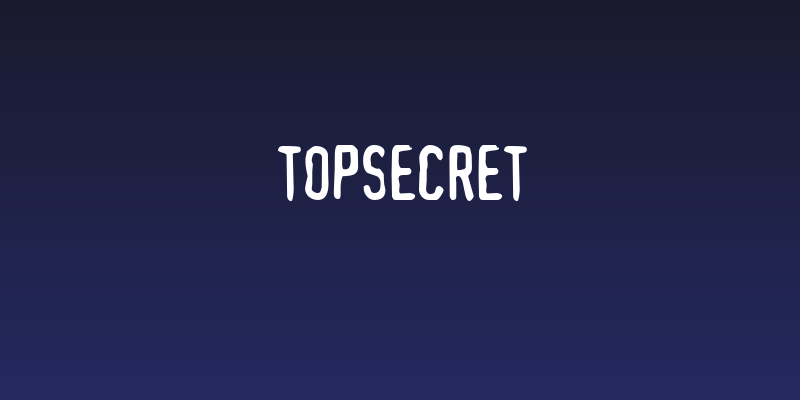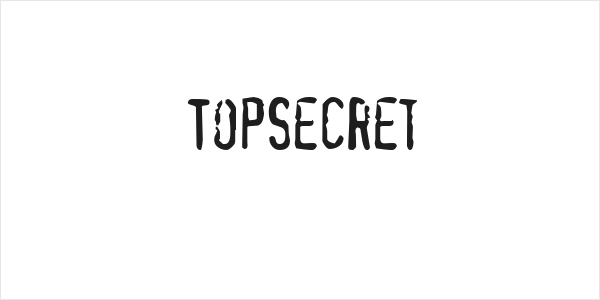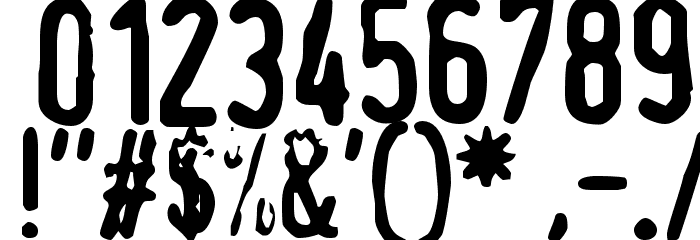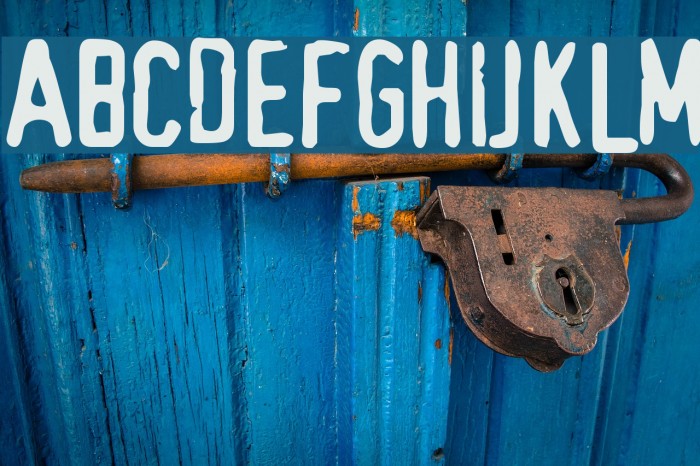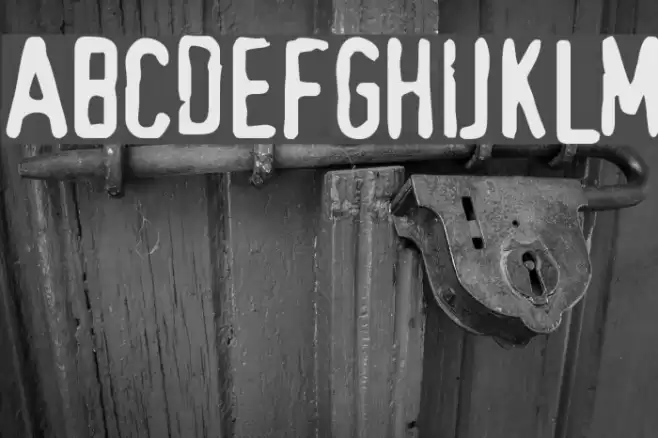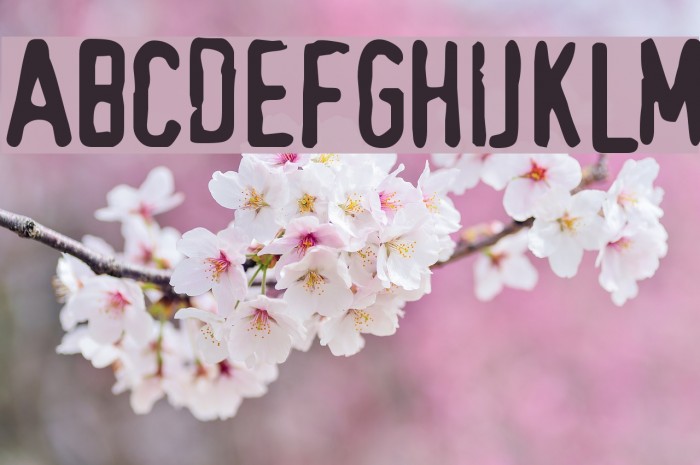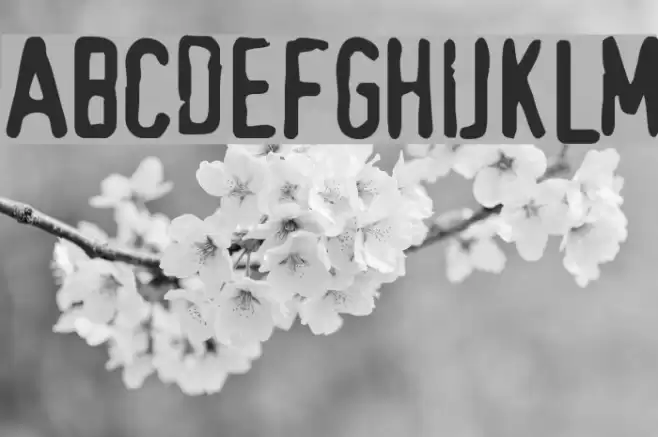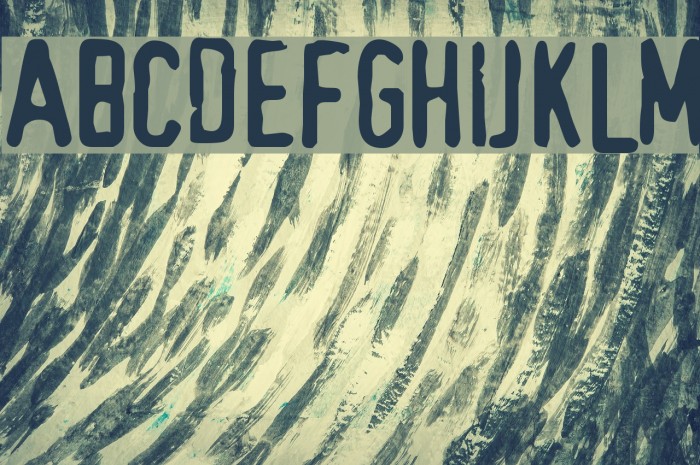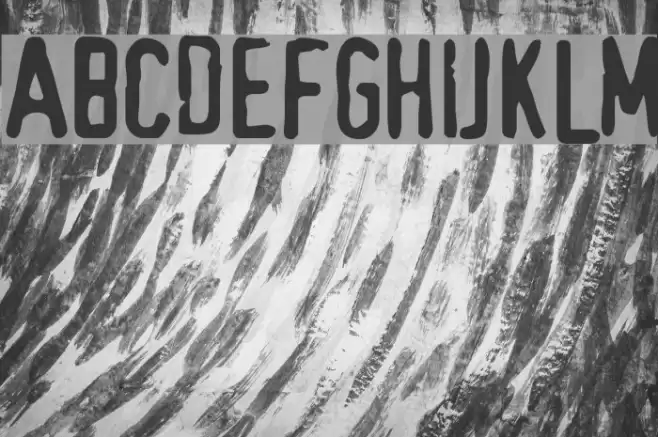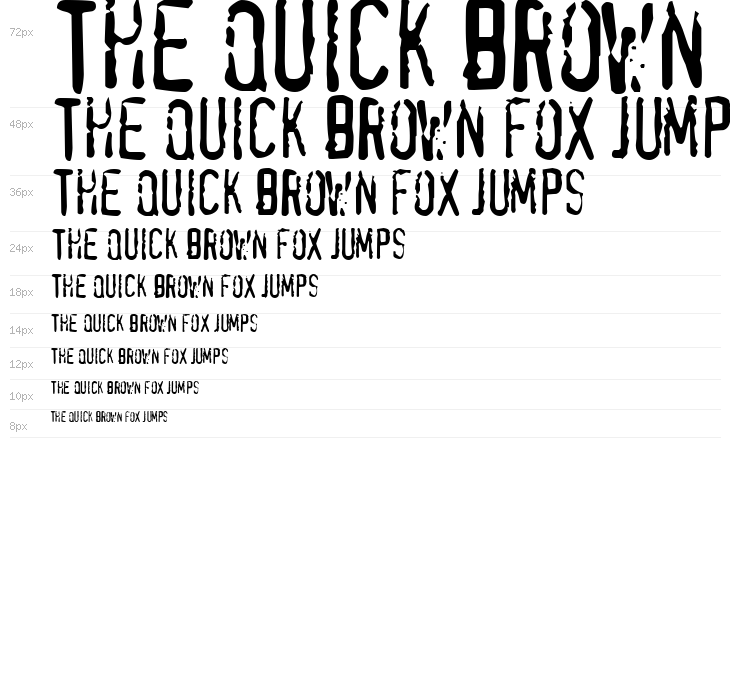
TopSecret Font
TopSecret Description
This font features a bold, distressed style with a stencil-like appearance, giving it a rugged and industrial feel. The uppercase letters are prominent and slightly irregular, adding a sense of urgency and secrecy. The numbers and special characters maintain this distressed look, making the font suitable for projects that require a gritty, urban aesthetic. Its unique style is reminiscent of military or espionage themes, perfect for conveying a sense of mystery or adventure.
| Overall Style | Industrial, Rugged |
| Proposed Projects | Ideal for use in posters, movie titles, video game graphics, or any project needing a gritty, secretive aesthetic. |